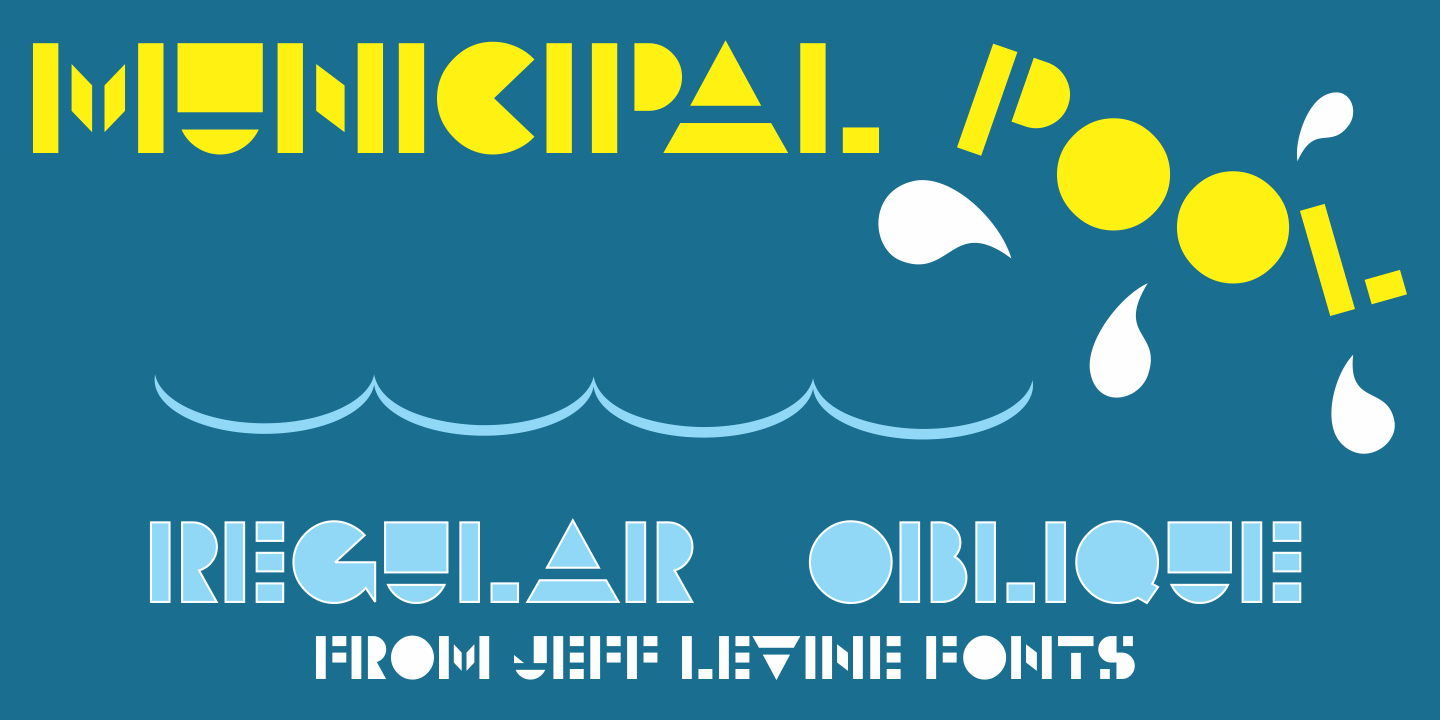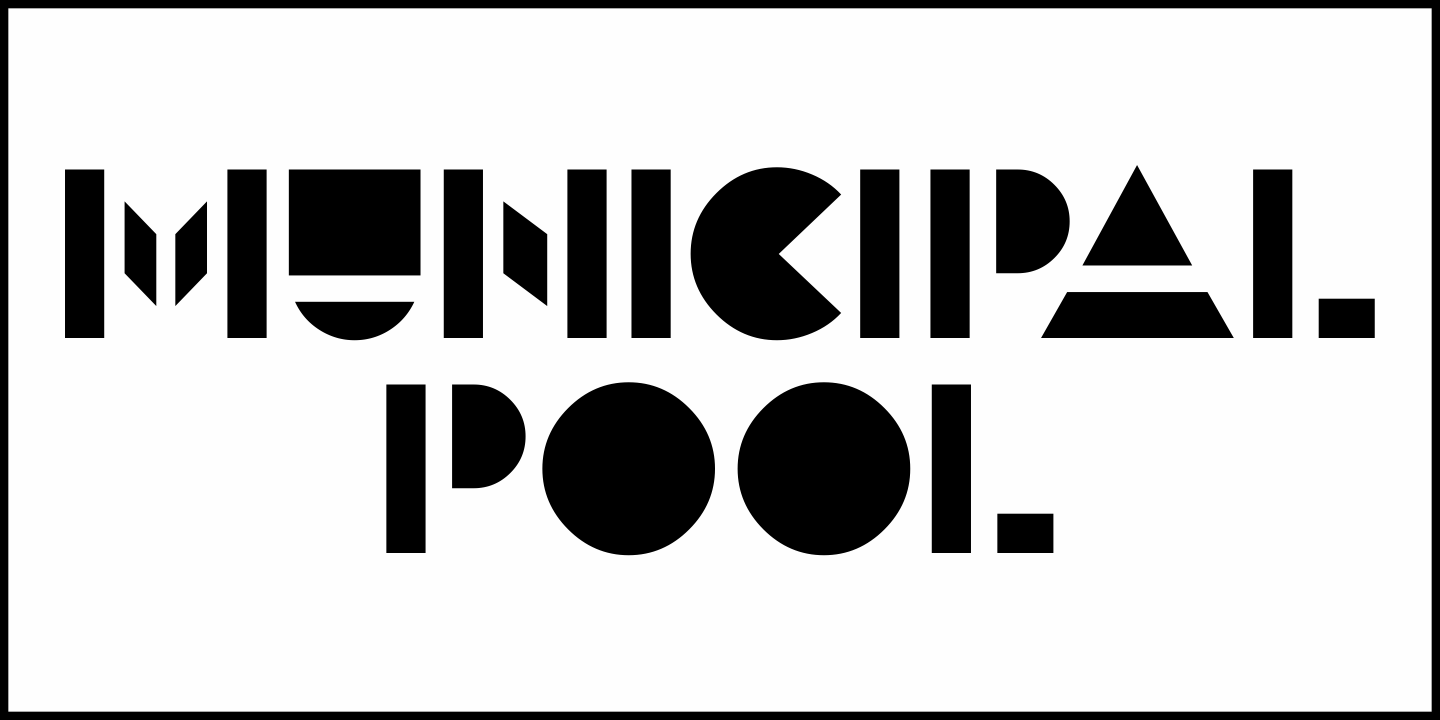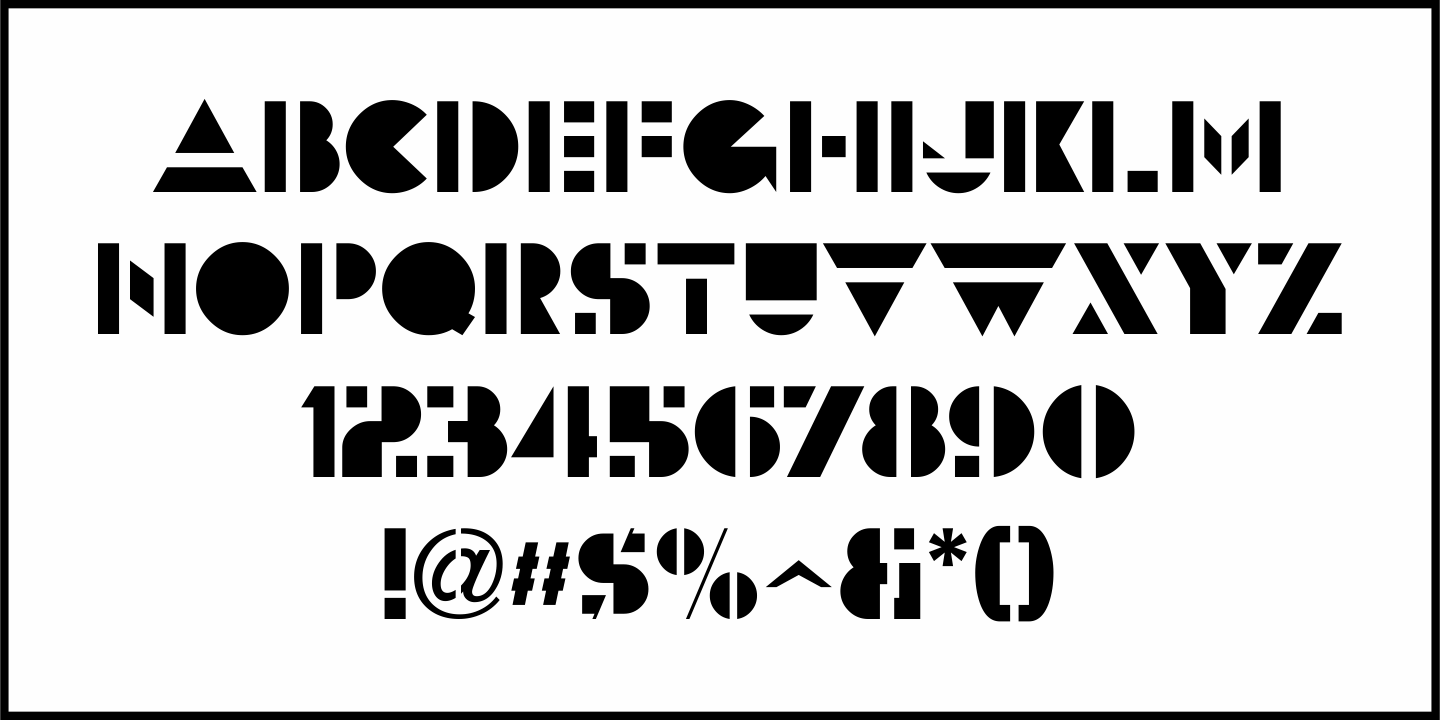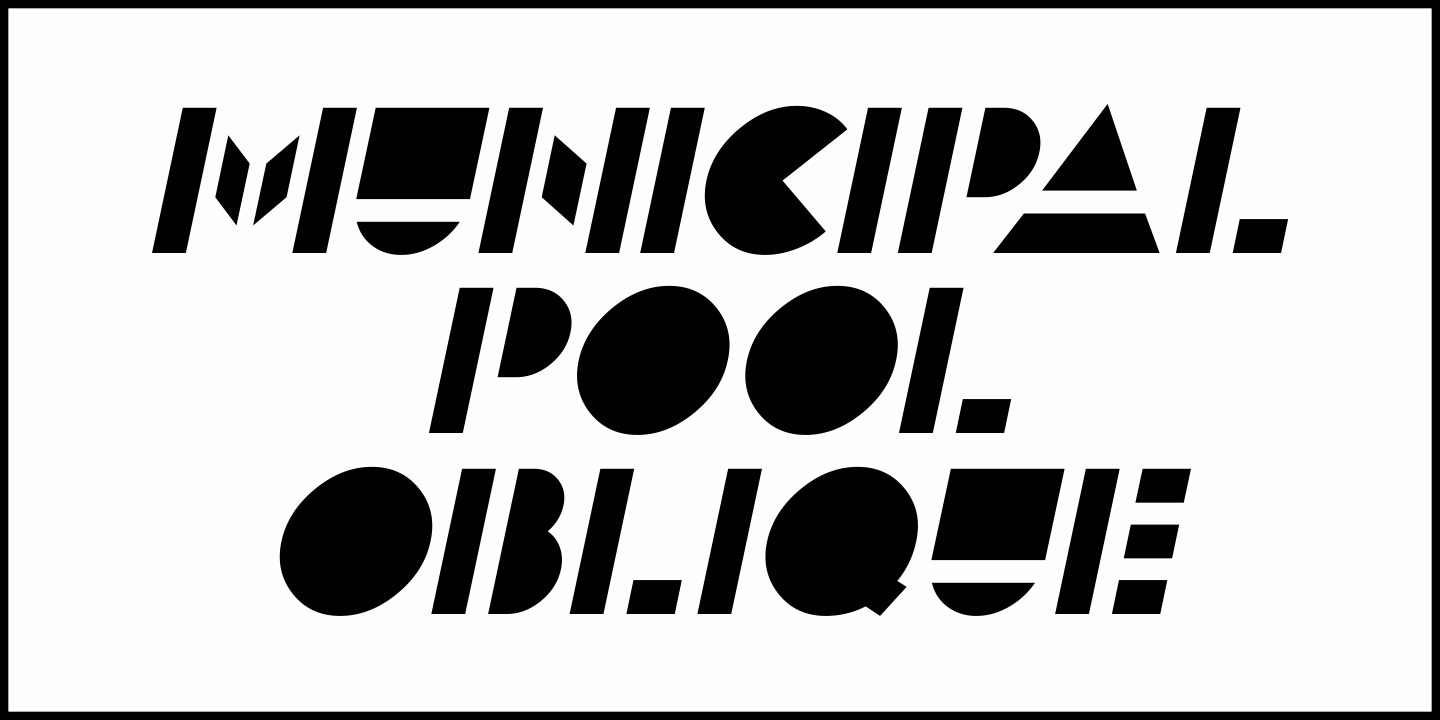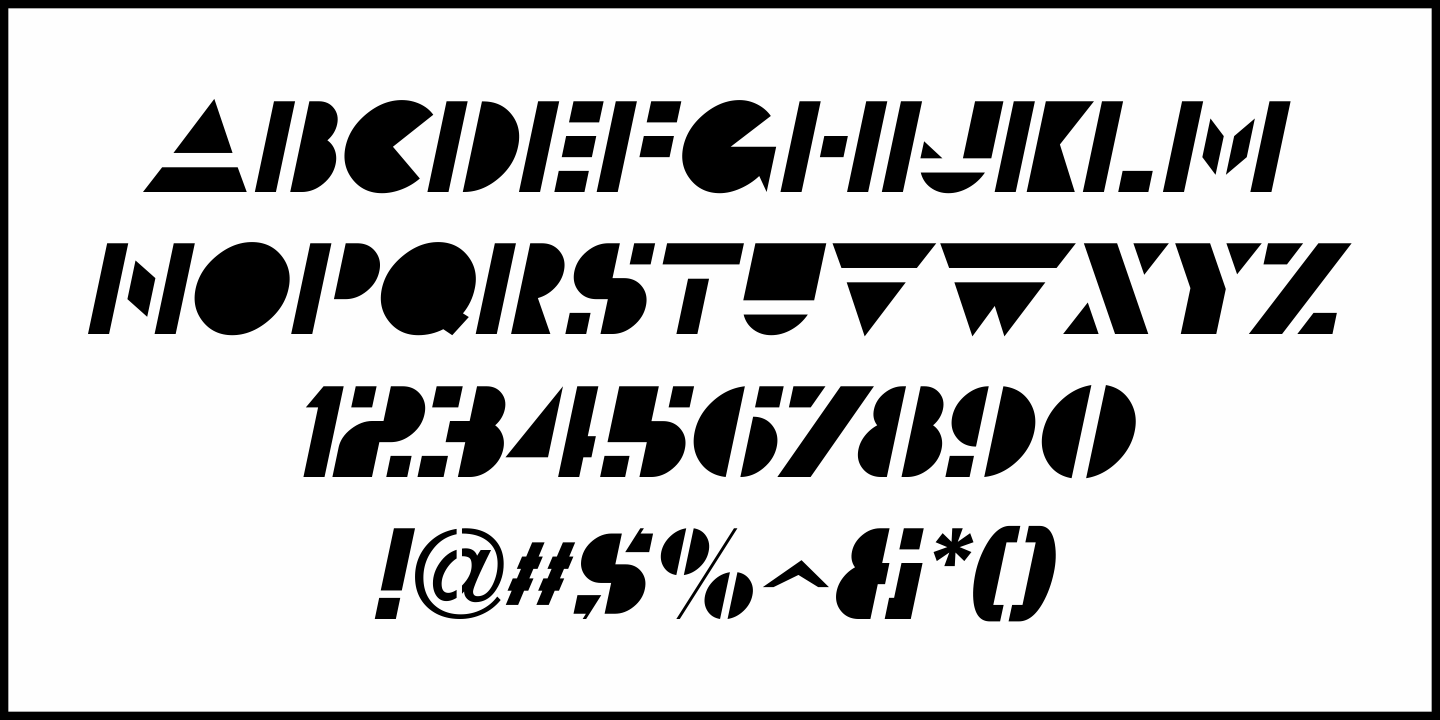
Municipal Pool
Buy NowA photo of the now closed [circa-1953] Lowell Municipal Pool (at 1601 N. 28th St.) in Boise, Idaho shows the words “Municipal Pool” formed into the cement of the entrance to the above-ground swimming facility.
Both the lettering and building entrance designs harken back to the Art Deco era and the sign features stencil-like characters.
This inspired a typeface aptly named Municipal Pool JNL, and is available in both regular and oblique versions.